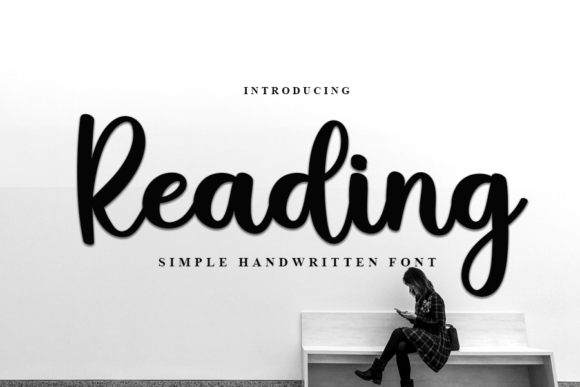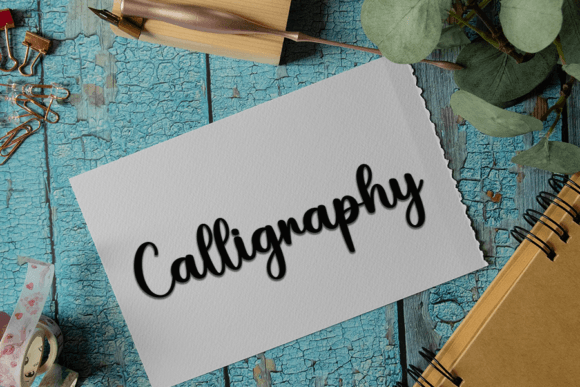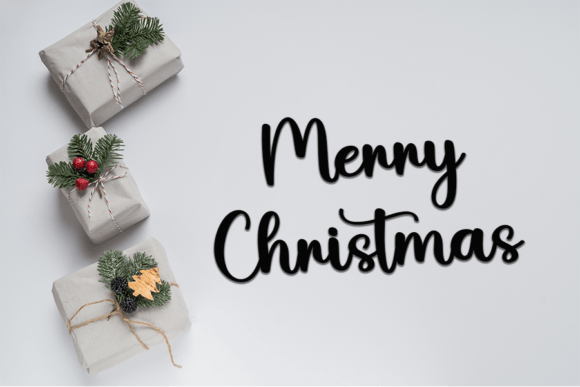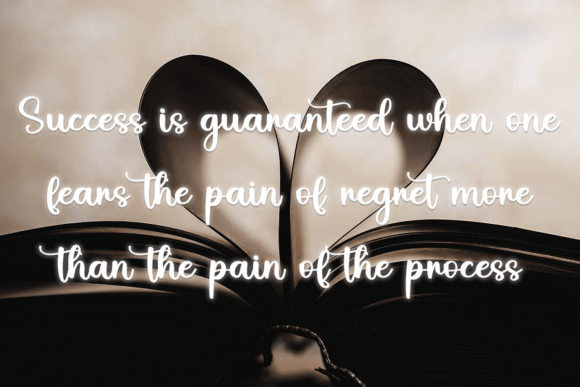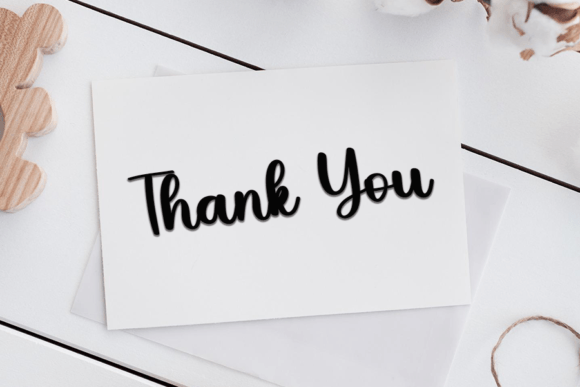
About ReadingFont
ReadingFont is a bold handwritten script that blends gorgeous strokes with timeless beauty. With confident curves and expressive lines, this typeface adds sophistication and personality to both personal and professional projects. Because of its versatile design, Reading Font is perfect for crafts, greeting cards, invitations, posters, logos, and branding.
A Bold Handwritten Typeface with Gorgeous Style
Handwritten fonts bring individuality to design, and Reading Font highlights this with stylish and powerful strokes. Its bold rhythm ensures visibility, while its elegant details create sophistication. Moreover, its versatile design adapts seamlessly to both casual and formal layouts. As a result, this handwritten script is a reliable choice for creatives seeking originality and elegance.
For personal stationery and event projects, Reading Font is an excellent companion. For example, it can transform a wedding invitation into a cherished keepsake. In addition, it works beautifully for thank-you cards, birthday notes, and seasonal greetings. Because of its bold yet elegant structure, every project feels heartfelt, stylish, and memorable.
A Script Typeface for Logos and Branding
Brands and businesses aiming for a distinctive identity can rely on Reading Font. It adds character and refinement to logos, product labels, and packaging. Furthermore, on social media, it enhances posts, stories, and promotional banners with creativity. When paired with minimalist sans serif fonts, Reading Font strikes balance between professionalism and charm.
Another strength of Reading Font is its adaptability across mediums. In print, it looks stunning on brochures, posters, magazines, and merchandise. Digitally, it elevates websites, blogs, and presentations with authenticity. Since it scales smoothly in both small and large sizes, this handwritten script remains practical for diverse creative uses.